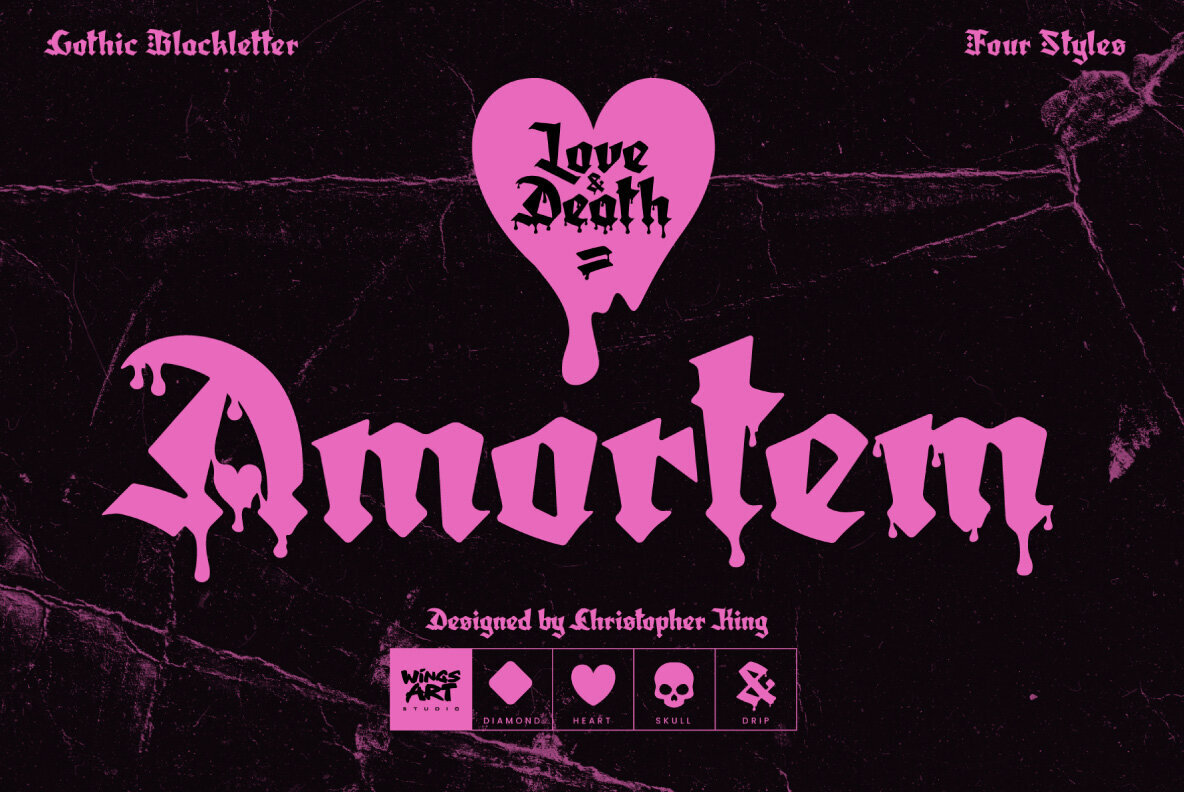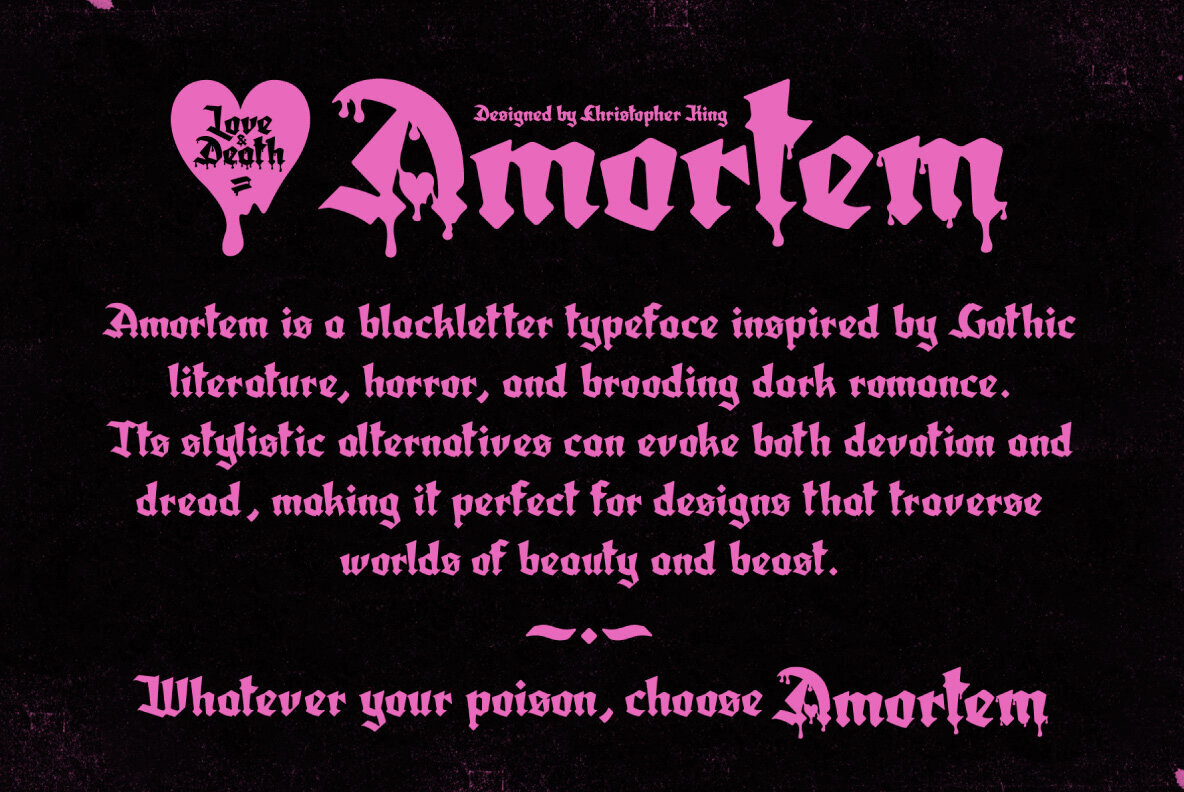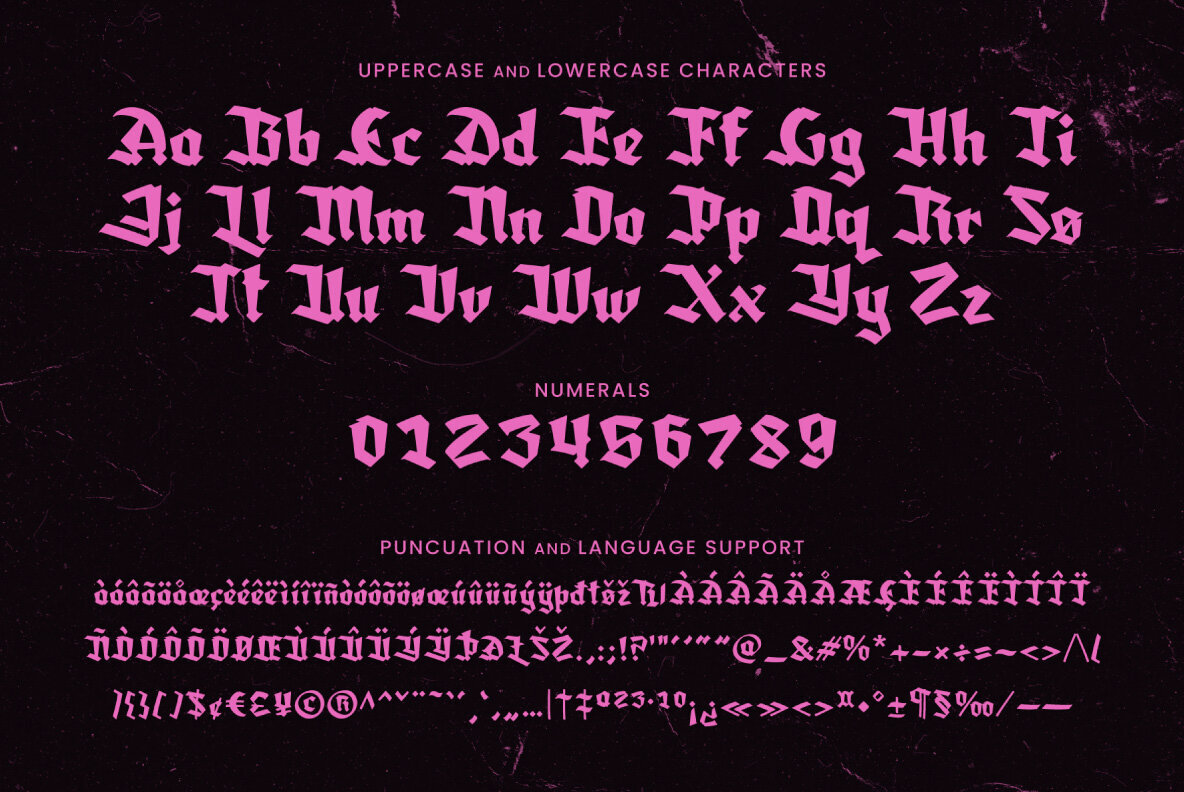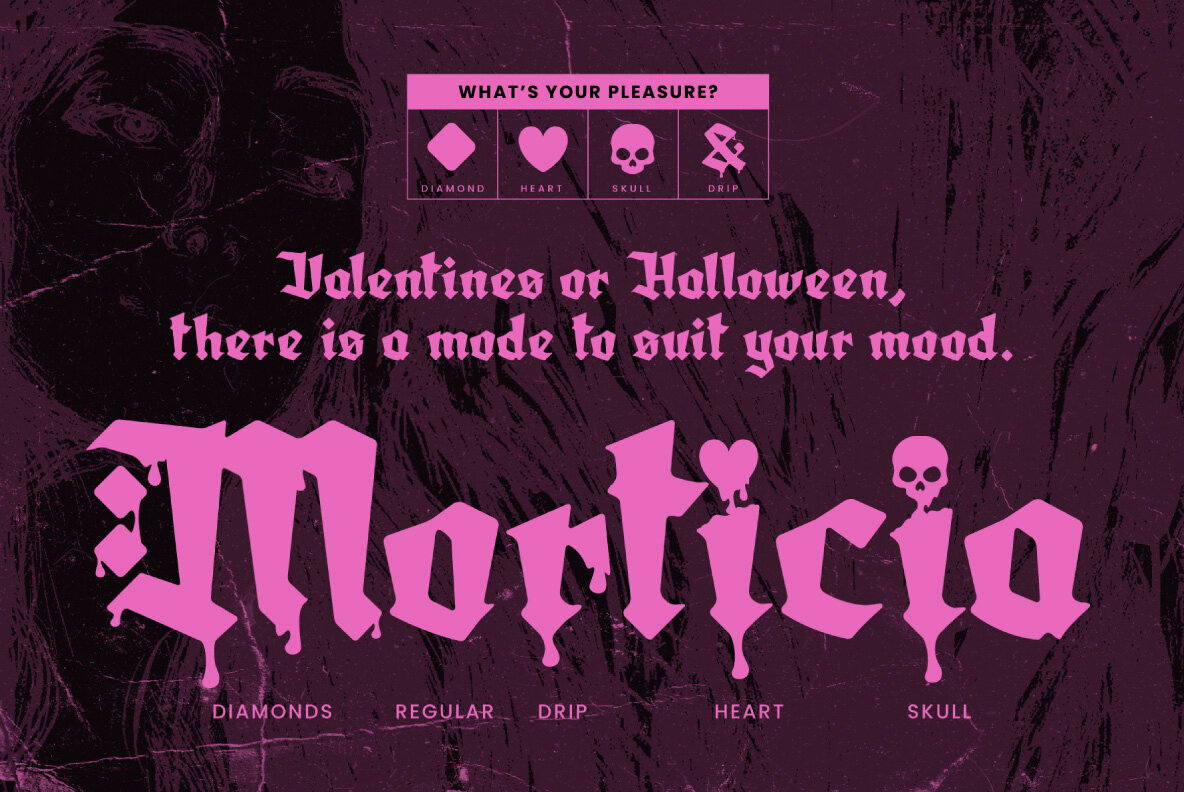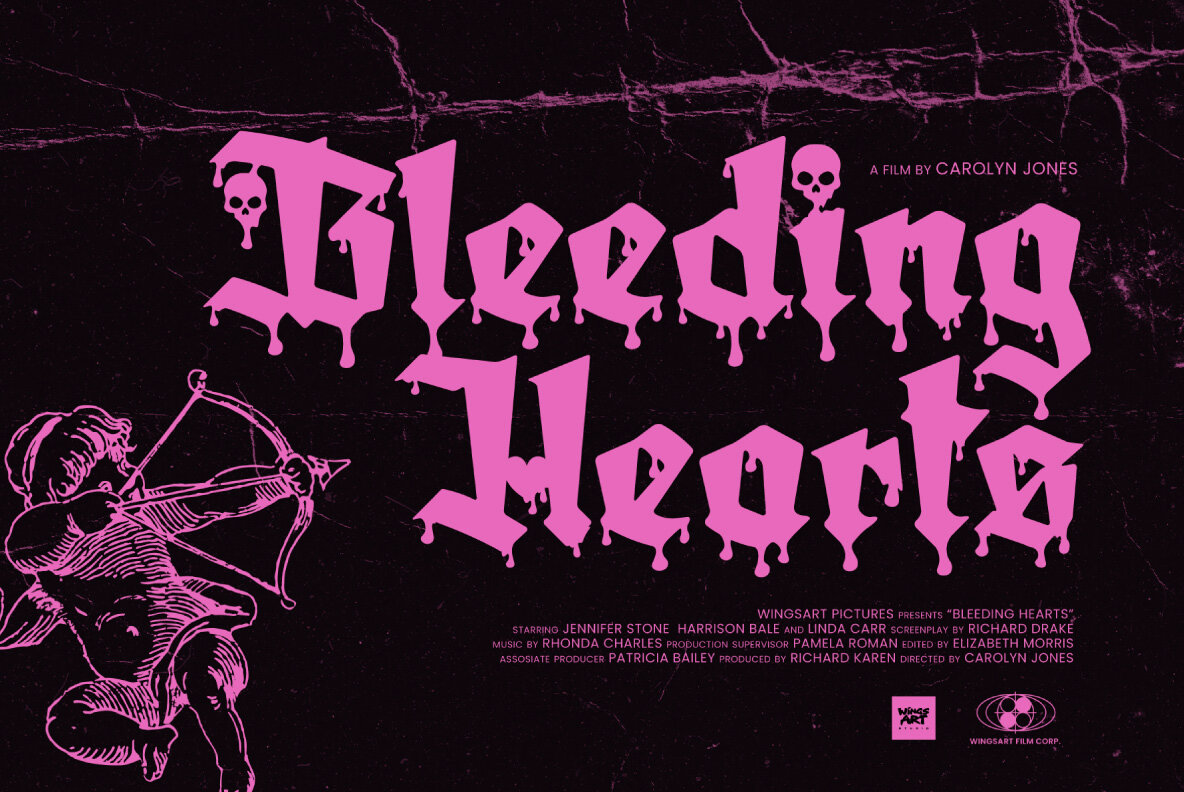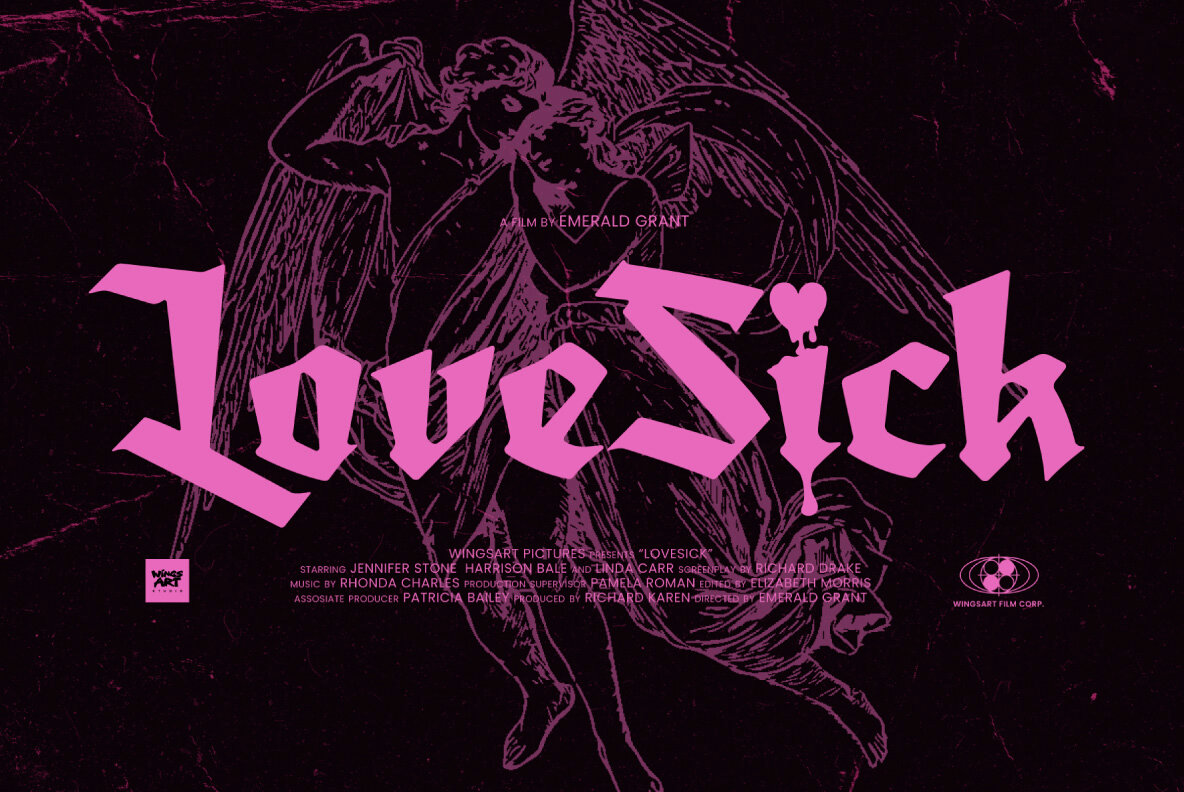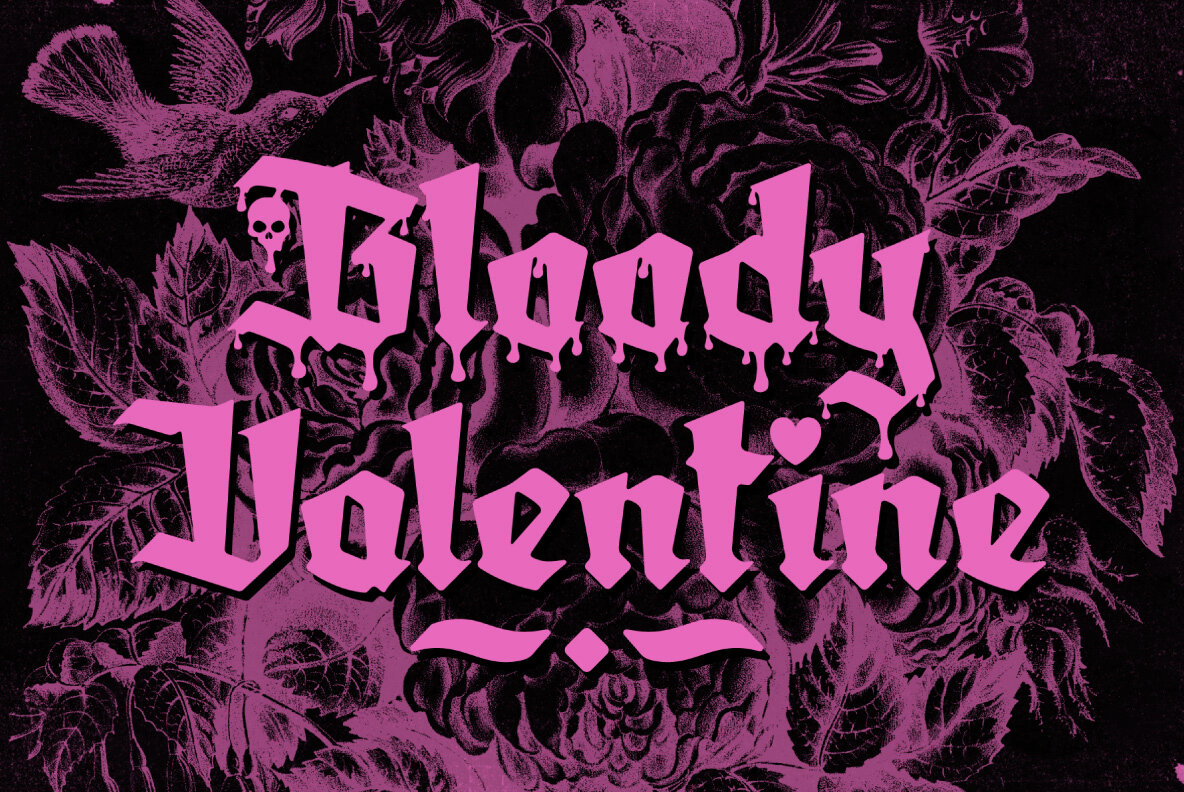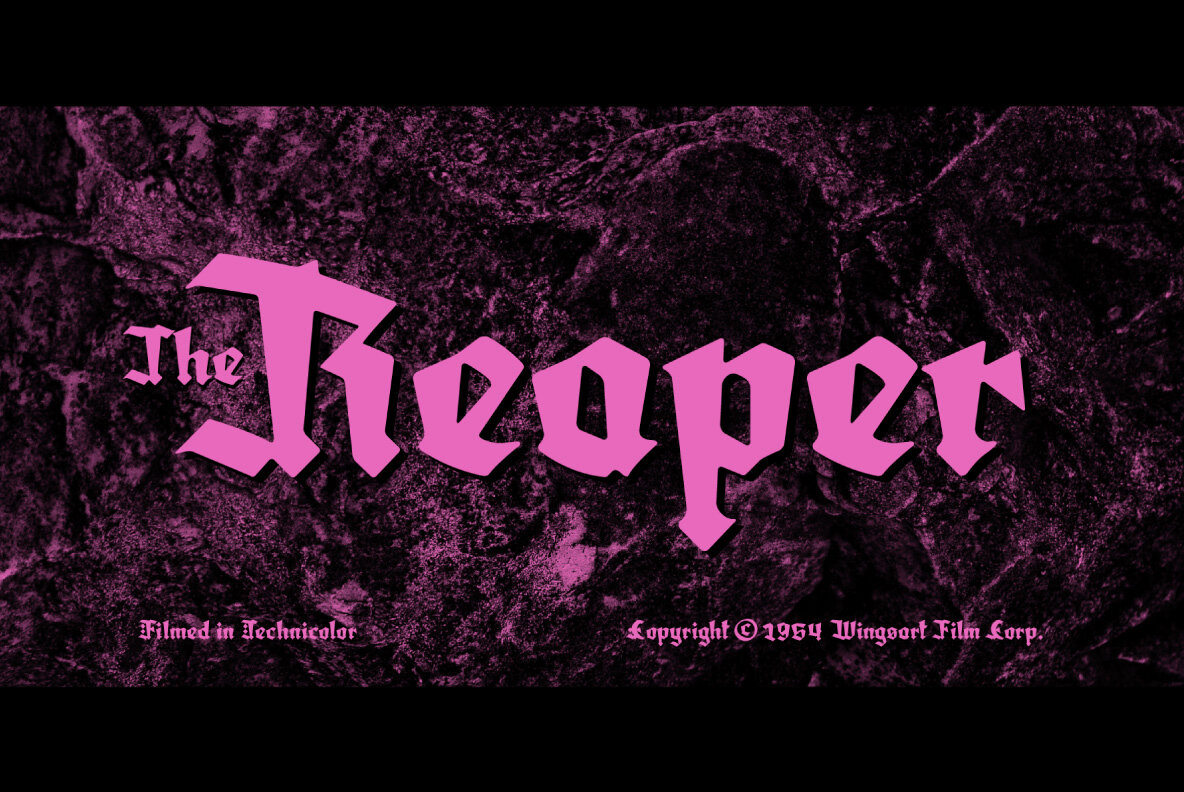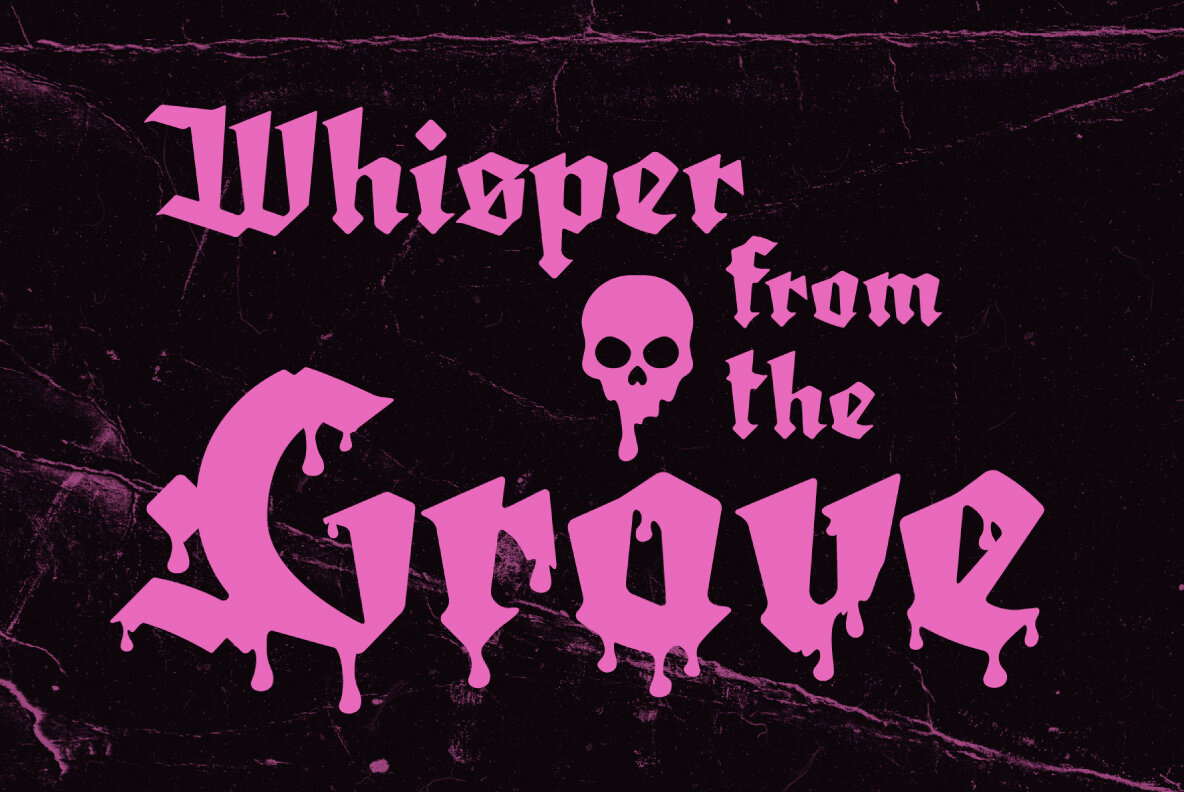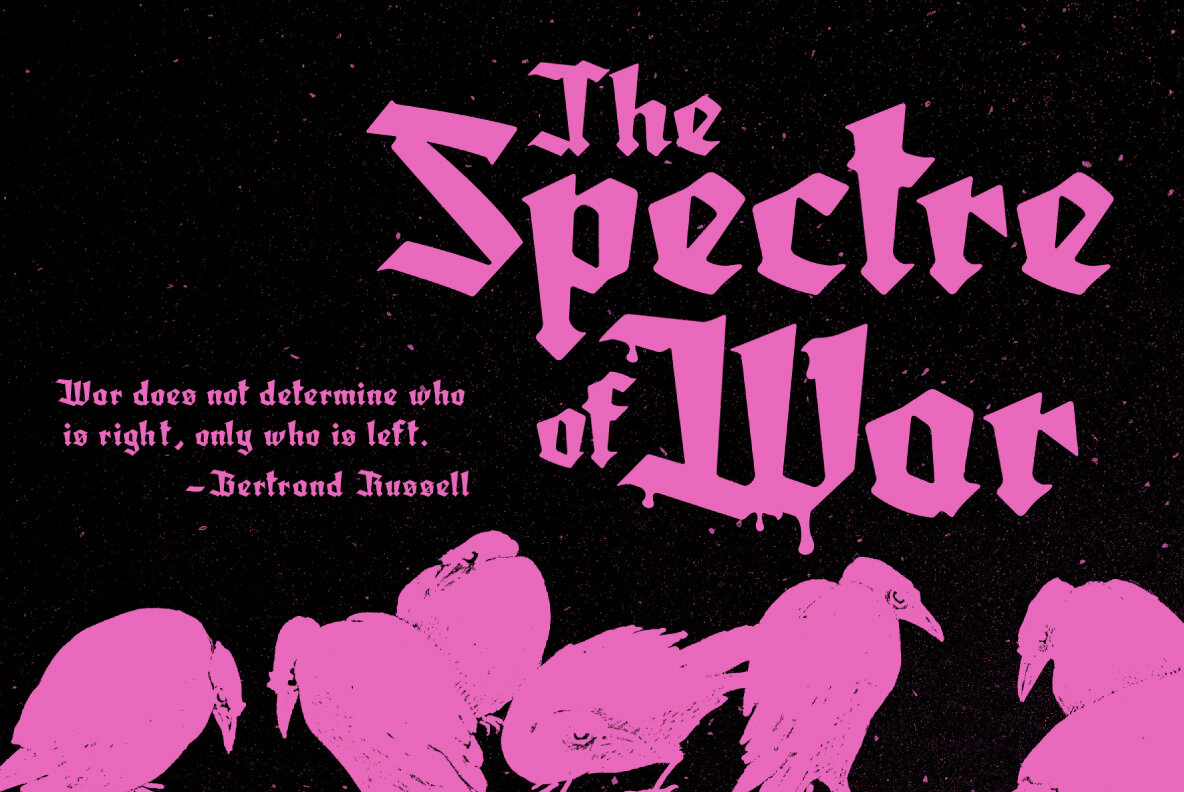
Amortem Font
Amortem Regular
Amortem Diamond
Amortem Drip
Amortem Drip Diamond
Amortem Drip Heart
Amortem Drip Skull
Amortem Heart
Amortem Skull
Amortem is a blackletter typeface that distills the drama of Gothic literature and the atmosphere of horror into each glyph. The distinct design navigates a spectrum between romance and menace, providing an evocative visual language for projects that draw on themes of devotion, dread, and deep-rooted myth. Refined for creative directors and graphic designers, Amortem delivers a sophisticated solution for branding, atmospheric titles, and editorial design. Visual complexity and tactile character shape Amortem’s appeal. Within each letterform, sharp details and tempered edges create a sense of history, invoking cautionary tales, occult symbolism, and the enduring weight of tradition. The blackletter structure remains legible at a range of sizes, due to subtle refinement in the contours—effective for both display and text applications. Whether you seek to craft an album cover with narrative depth or lend a haunting tone to a poster, this typeface adds nuanced energy to the page. Amortem adapts well for seasonal themes—Valentine’s Day or Halloween—and serves film, music, and literary projects with equal poise. Each variation invites creative experimentation with contrasting moods and design directions.Amortem Blackletter: Classic Drama with Gothic Flourish
Based near Bristol, UK, Christopher King is the designer behind Wingsart Studio, a creative practice specializing in hand-drawn lettering and bespoke typography for film and television. Acting as both a working portfolio and an independent font foundry, Wingsart Studio showcases King’s deep appreciation for mi...